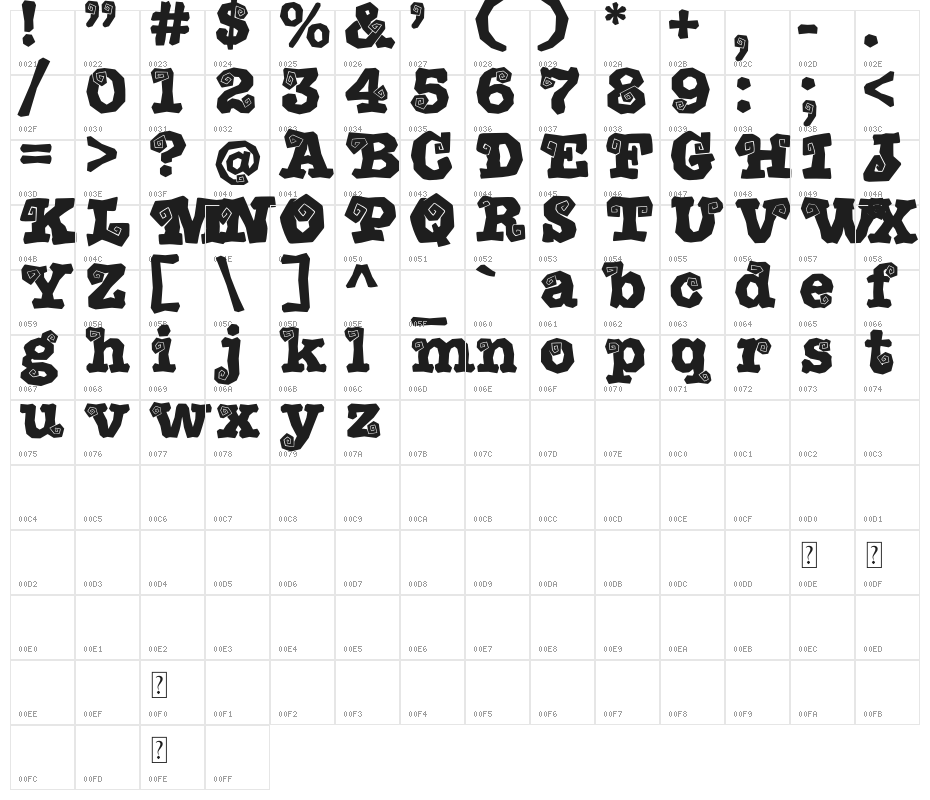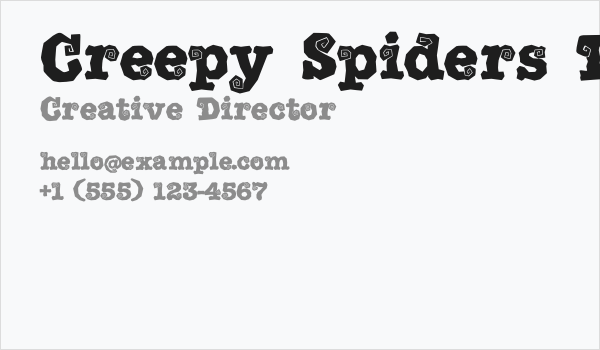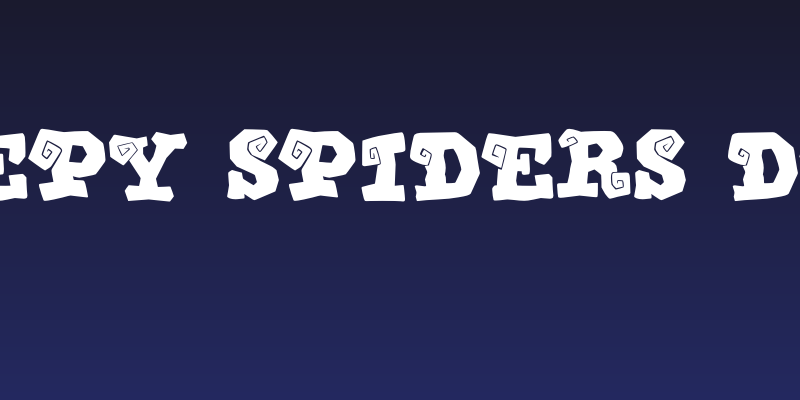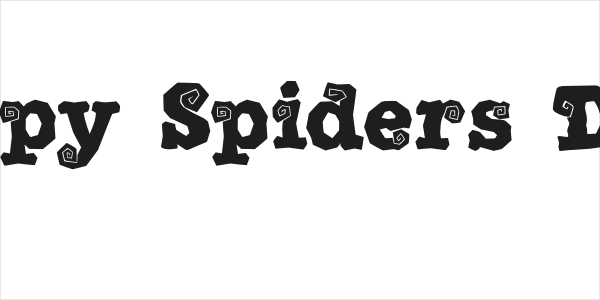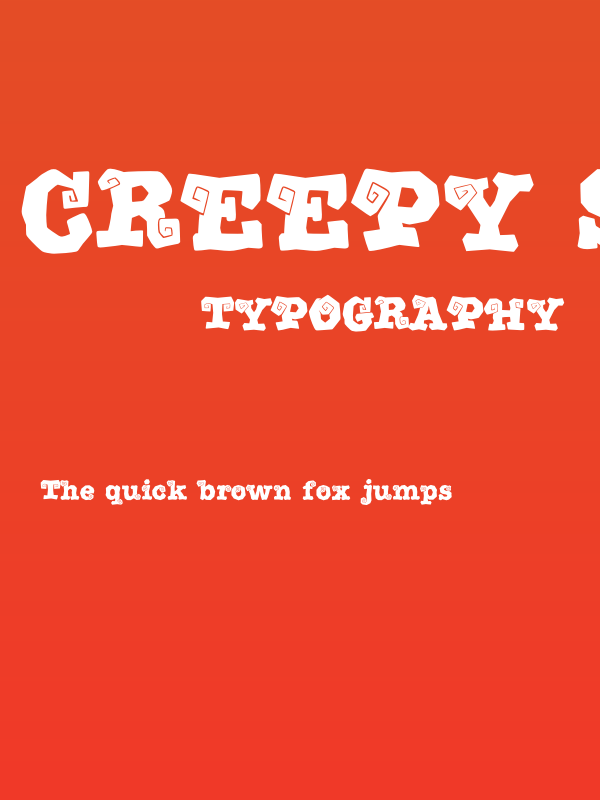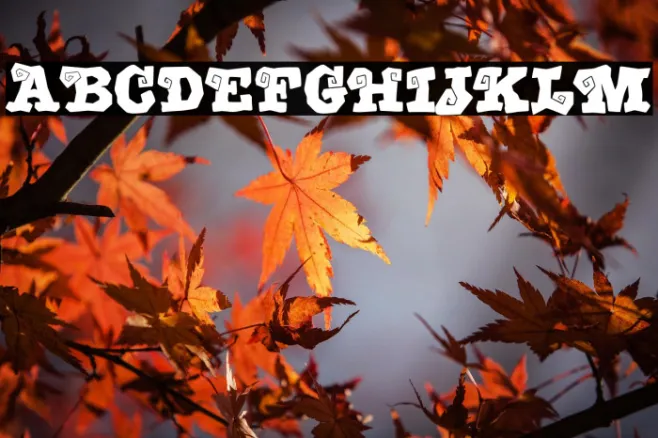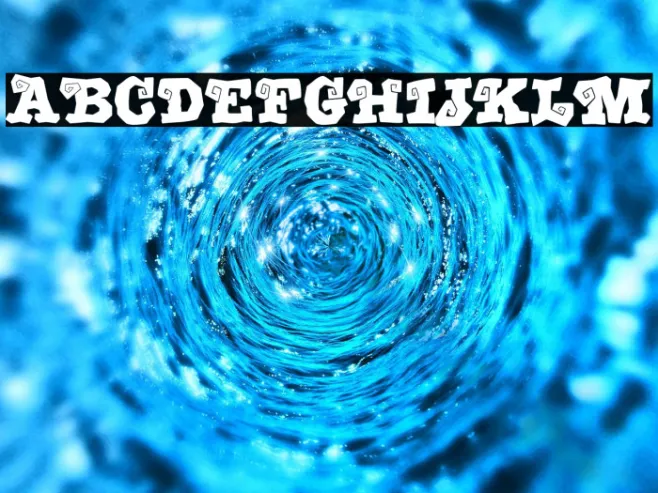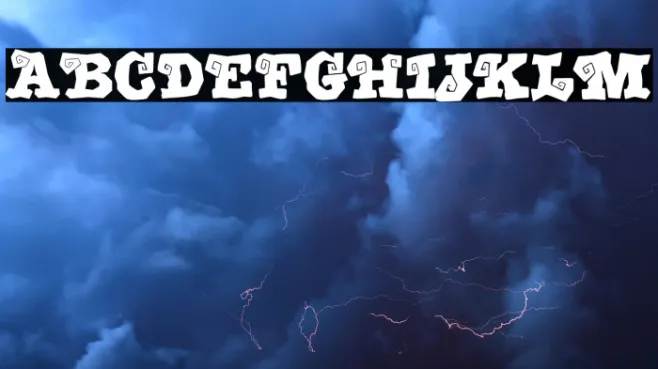
Creepy Spiders Demo Font
| Vorgeschlagene Projekte | This font is perfect for Halloween-themed posters, party invitations, children's book covers, and any project that requires a playful yet eerie touch. |